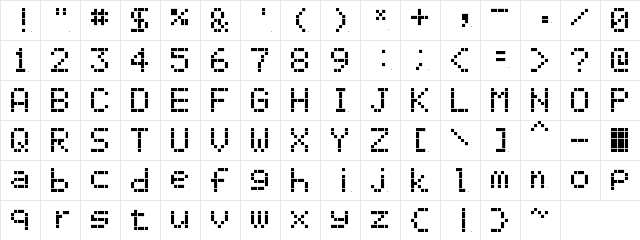
PerfectLed123 Regular
| Designer | salvmaro |
Design Context for PerfectLed123 Typeface
PerfectLed123 is a composed and adaptable typeface that performs quietly and consistently across a wide range of design contexts.